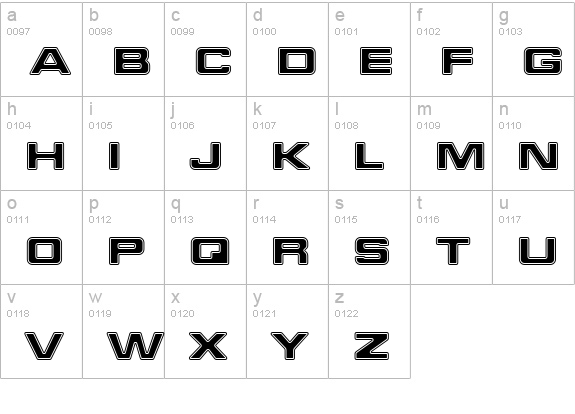
Introducing Final Frontier Shipside font, where elegance meets innovation in the realm of typography. This captivating typeface effortlessly captures the essence of adventure, taking us on a journey to the outer reaches of the galaxy. With its sleek and futuristic design, Final Frontier Shipside font brings a sense of excitement and wonder to any project it graces. This font is a perfect blend of style and functionality, with its clean lines and bold letterforms. Each character is meticulously crafted, creating a seamless flow that is both visually striking and highly legible. Whether you're designing a science fiction novel cover, a futuristic movie poster, or even a cutting-edge website, Final Frontier Shipside font will undoubtedly elevate your creative vision. What sets Final Frontier Shipside font apart is not only its exceptional design but also its accessibility. We believe that creativity should know no boundaries, which is why we are proud to offer this font for free. Yes, you read that right – Final Frontier Shipside font is freely available to download at FontsMarket.com. With a simple click, you can unlock endless possibilities and embark on your own creative odyssey. Imagine the thrill of exploring uncharted design territories, armed with a font that embodies the spirit of exploration and pushes the boundaries of innovation. Whether you're a seasoned designer or just starting your creative journey, Final Frontier Shipside font is here to empower and inspire. Its versatility enables it to adapt to a wide range of projects, from digital interfaces to printed materials, ensuring that your message is conveyed with utmost impact and precision. So, what are you waiting for? Join the ranks of countless designers who have already embraced Final Frontier Shipside font as their go-to choice for futuristic and captivating typography. Download it for free at FontsMarket.com today and let your imagination soar to the Final Frontier.